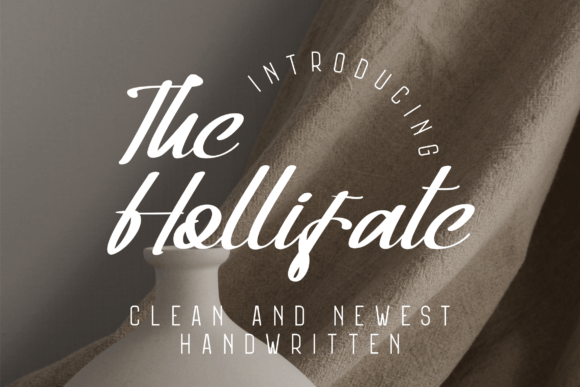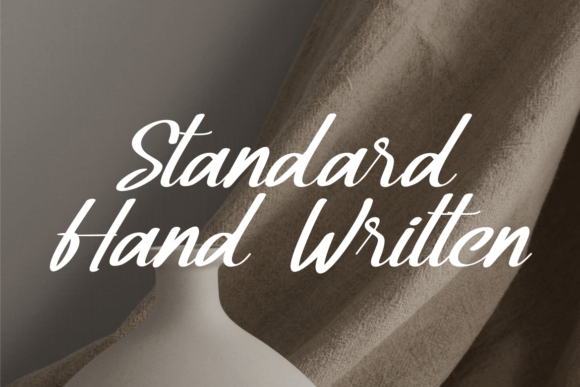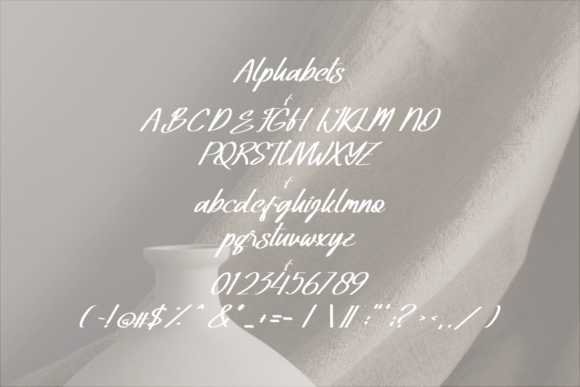
The Hollifate Font
About The Hollifate Font
**Elevate Your Designs with The Hollifate Font**
The Hollifate font is the epitome of elegance, class, and modernity. Its handwritten style exudes sophistication, making it an exceptional choice for a wide range of design projects. Here’s why The Hollifate font is the perfect addition to your creative toolkit:
**Elegance and Class:** The Hollifate font effortlessly combines elegance and class, making it ideal for projects that demand a touch of sophistication and refinement.
**Fashion and Apparel:** Elevate your fashion and apparel projects with The Hollifate font. Its modern and stylish appearance enhances the visual appeal of clothing labels, tags, and branding.
**Signatures:** Create personalized and stylish signatures for documents, contracts, or digital artwork using The Hollifate font. It adds a unique and professional touch to your signature.
**Album Covers:** Design captivating album covers that stand out from the crowd. The font’s modern and classy style complements various music genres and visual aesthetics.
**Logos:** Craft memorable logos that leave a lasting impression. The handwritten charm of The Hollifate font adds a touch of authenticity to your brand identity.
**Branding:** Establish a strong and distinctive brand image with The Hollifate font. It conveys professionalism and elegance, making your brand more memorable.
**Magazines:** Use The Hollifate font for magazine titles, headlines, and feature articles. Its modern look enhances the overall layout and readability of your publication.
**Social Media:** Capture the attention of your social media audience with stylish and modern posts and captions created using The Hollifate font.
**Advertisements:** Design attention-grabbing advertisements for print and digital media. The font’s elegant style makes your ad campaigns more appealing.
**Versatile Usage:** The Hollifate font adapts seamlessly to various design projects, from digital content to print materials.
**Timeless Appeal:** Its classic and timeless design ensures that your designs remain relevant and stylish over time.
**Fine Details:** The font’s intricate details and well-crafted characters make it a standout choice for projects that require precision and aesthetics.
**Access to Glyphs:** The font includes special characters and glyphs, enhancing its versatility and allowing you to create unique and customized designs.
**Professional Documents:** Use The Hollifate font for professional documents, presentations, and reports, adding a touch of sophistication to your corporate materials.
**Captivate Audiences:** The Hollifate font captivates audiences with its refined and modern look, leaving a lasting impression on readers and viewers.
**Emotional Impact:** Its elegant style can evoke emotions such as luxury, style, and confidence, making it suitable for a wide range of design concepts.
**Personal Expression:** Whether you’re designing personal stationery, invitations, or home decor, The Hollifate font adds a touch of elegance to your creative expressions.
**Storytelling:** Use this font to set the tone for your storytelling in book covers, titles, and illustrations, enhancing the narrative’s impact.
The Hollifate font is more than just a typeface; it’s a versatile tool for elevating your designs and conveying elegance and modernity. Whether you’re working on fashion projects, branding, or corporate materials, The Hollifate font is a choice that combines sophistication with contemporary style, making it an outstanding and captivating option for designers and creators.